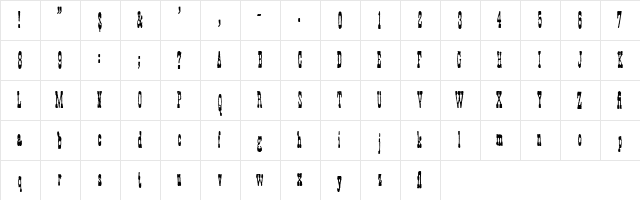
Faywood Extra Condensed WF Regular
Design Context for Faywood Extra Condensed WF Typeface
Faywood Extra Condensed WF echoes the hand-painted signage and woodblock typography of the American frontier, with a warm, rugged personality.
Perfect for barbecue restaurants, country music branding, vintage poster design, and rustic packaging.
Font Pairing: Combine Faywood Extra Condensed WF with a simple slab or neutral sans — period-accurate companions reinforce the vintage feel without competing for attention.
Pro Tip: Pair Faywood Extra Condensed WF with aged textures or distressed backgrounds to amplify its vintage personality.